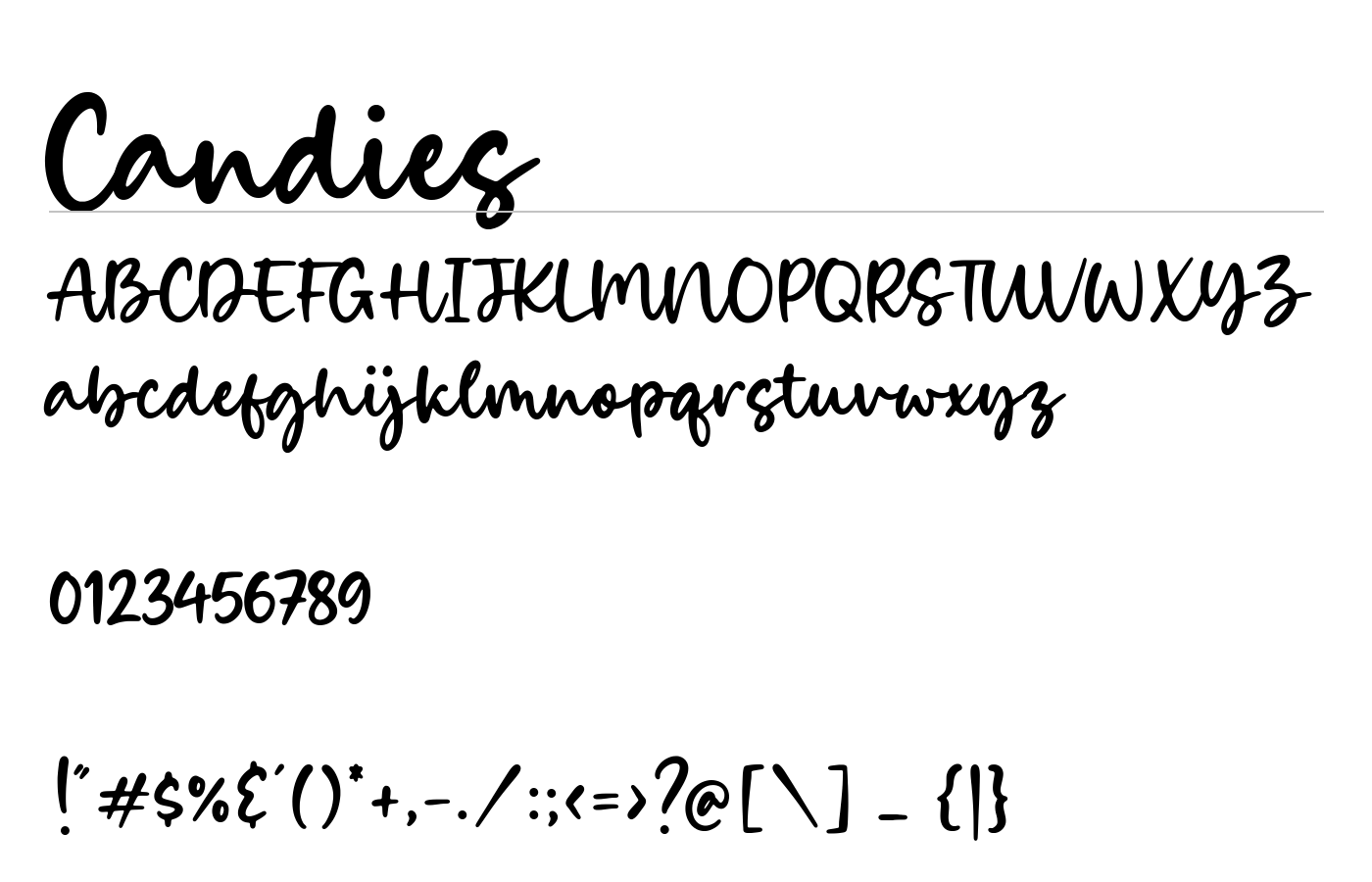
Candies is a lively script font with a casual, handwritten feel that combines smooth, rounded strokes with playful letterforms. Its moderate weight and natural flow make it perfect for adding a personal, friendly touch to branding, invitations, or social media designs. This font works well where a warm, approachable vibe is desired without sacrificing clarity or style.
Candies Font